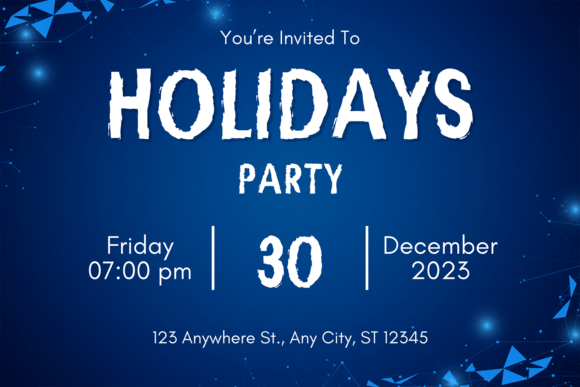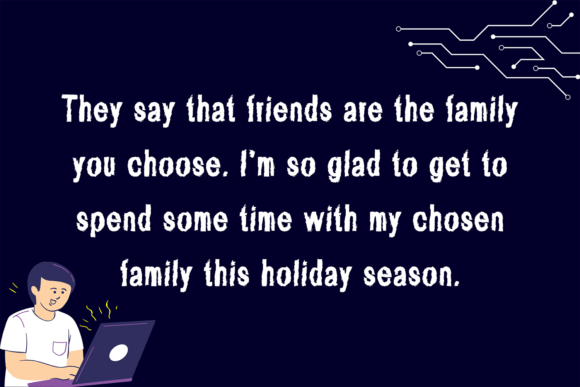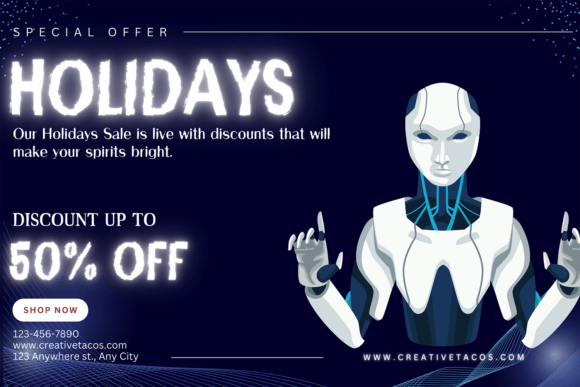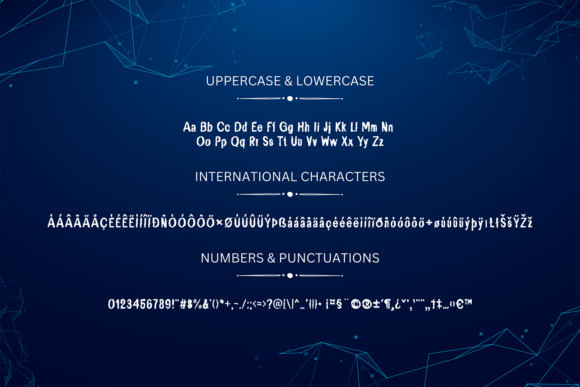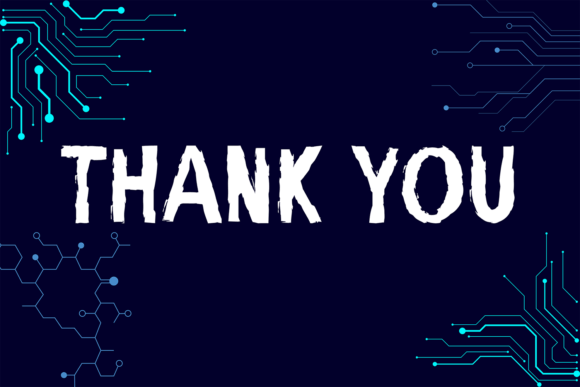
Introduction to Gurbuz Font
Gurbuz Holidays Font is a whimsical, unique, and cheerful bold font that embodies the joy and spirit of the holiday season.
This font is available in both capital and small letters, numbers, punctuation, and symbols with Latin extended character support Gurbuz font is specifically designed to capture the spirit of joy and celebration, making it perfect for creating holiday invitations, greeting cards, slideshows, logos, headlines, posters, branding, headlines, magazine layouts, website designs, advertisements, packaging designs, book covers and other celebration designs.
Key Features of Gurbuz Font
Why Choose Gurbuz Font?